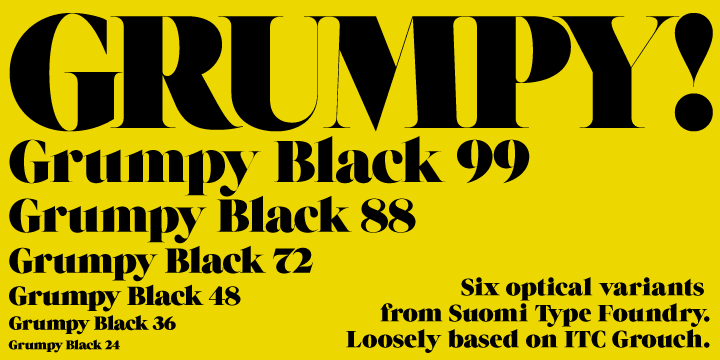
Grumpy is a display and display serif font family. This typeface has six styles and was published by Suomi Type Foundry.
Grumpy is loosely based on ITC Grouch by Herb Lubalin. Design is slightly heavier than Grouch, and many glyphs differ notably from Grouch. It is a display typeface with very tight tracking, and more than 2000 kerning pairs for overall even colour.
Letterspacing method is TNT (that is Tight, Not Touching); a very popular type treatment int the seventies and eighties.